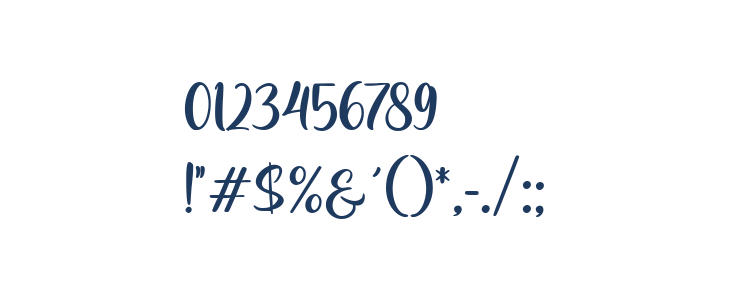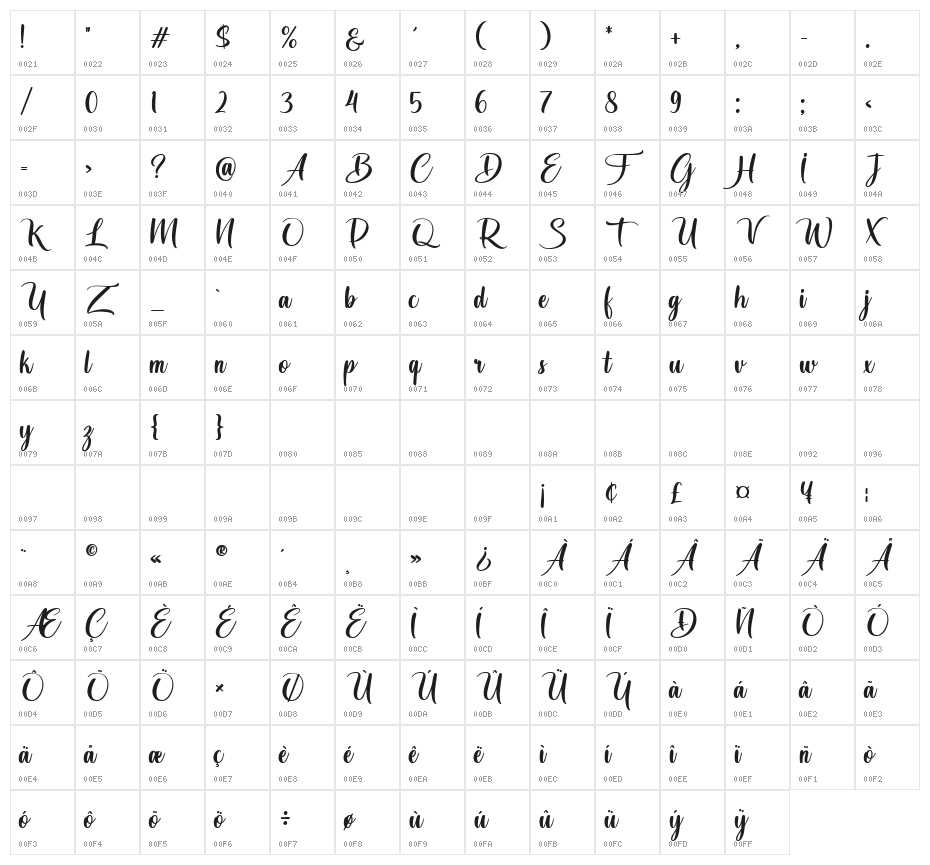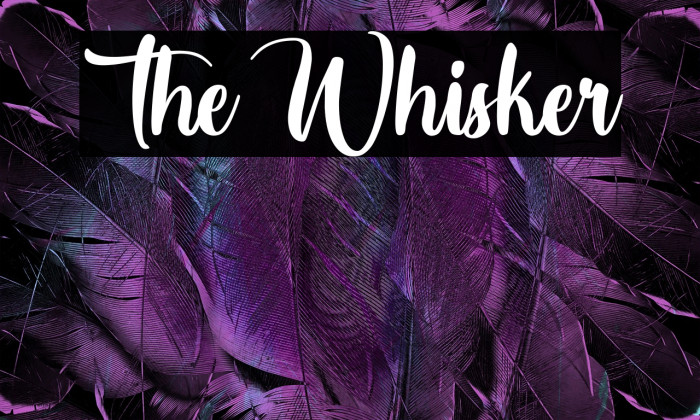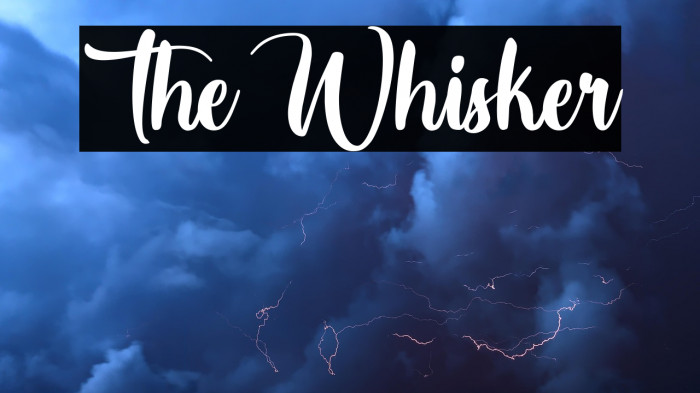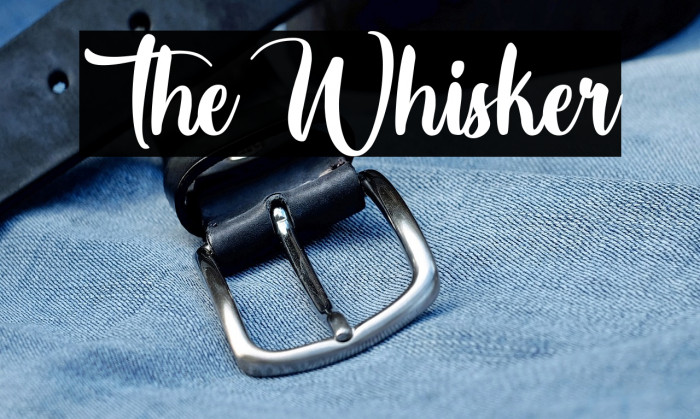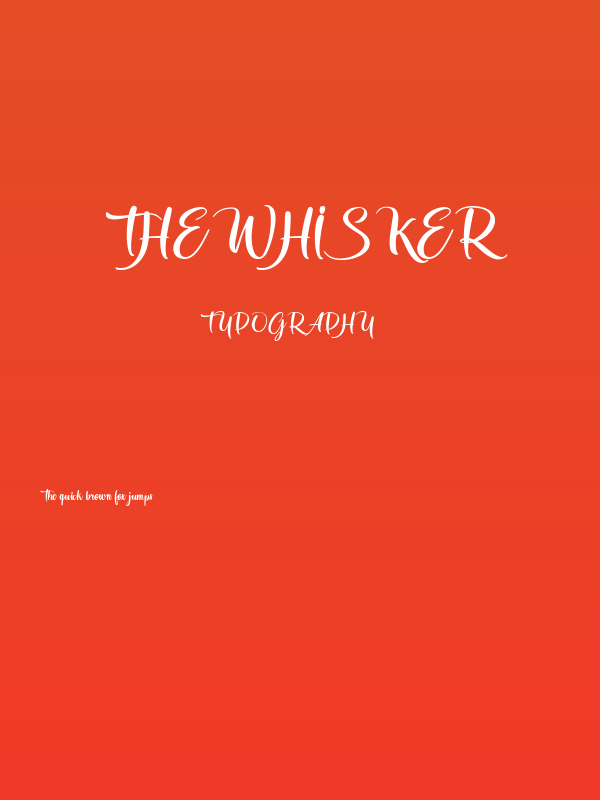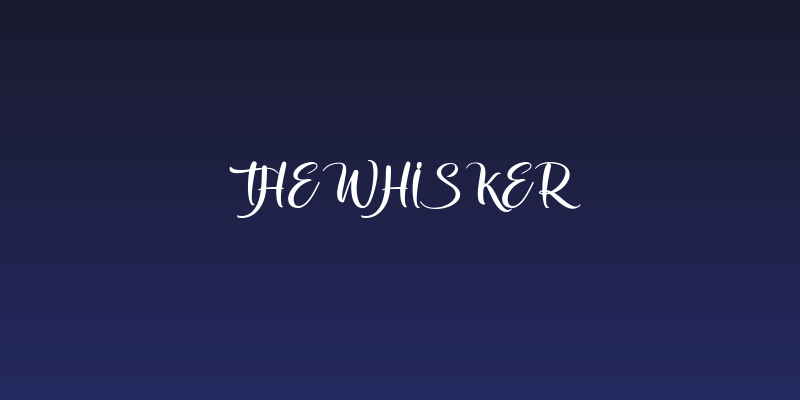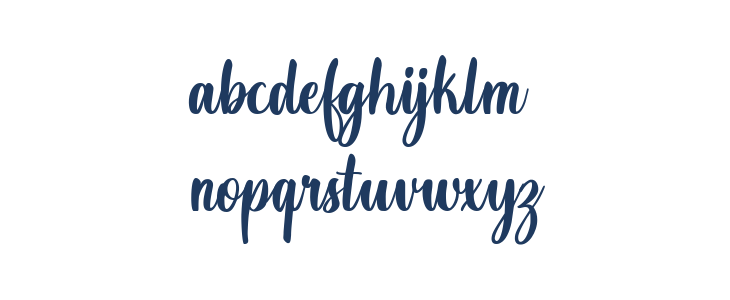
The Whisker Font
The Whisker Description
This font features an elegant and flowing script style, characterized by its smooth, cursive strokes and a sense of fluidity. The uppercase letters are ornate and slightly exaggerated, giving a sense of sophistication and flair. The lowercase letters maintain a consistent flow, with some characters featuring loops and swashes that add to the overall decorative appearance. The numerals are styled to match the script, with a slight slant and rounded edges that complement the letters. Special characters are designed with the same attention to detail, ensuring a cohesive look across all glyphs. This font is perfect for projects that require a touch of elegance and personality.